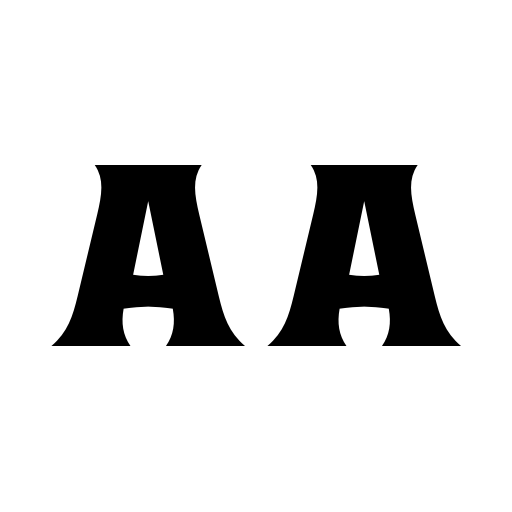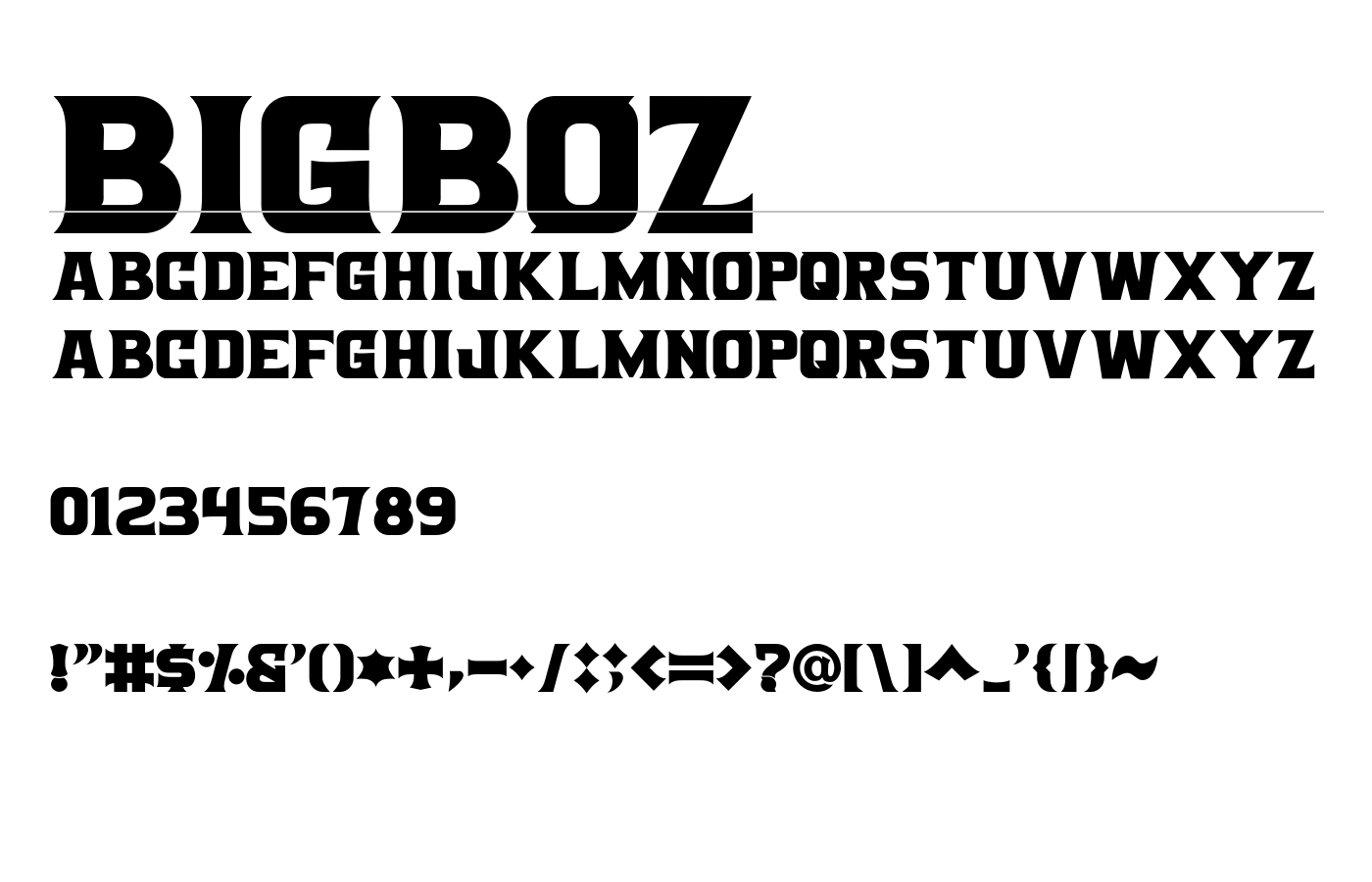
Bigboz is a bold, slab serif font with a strong, condensed structure and high contrast between thick and thin strokes. Its sharp, geometric serifs and distinctive letter shapes create a commanding and vintage-inspired look, perfect for eye-catching headlines and display uses. This font works well for branding, posters, and packaging where a bold, authoritative presence is needed.
Bigboz Font
About Bigboz Font